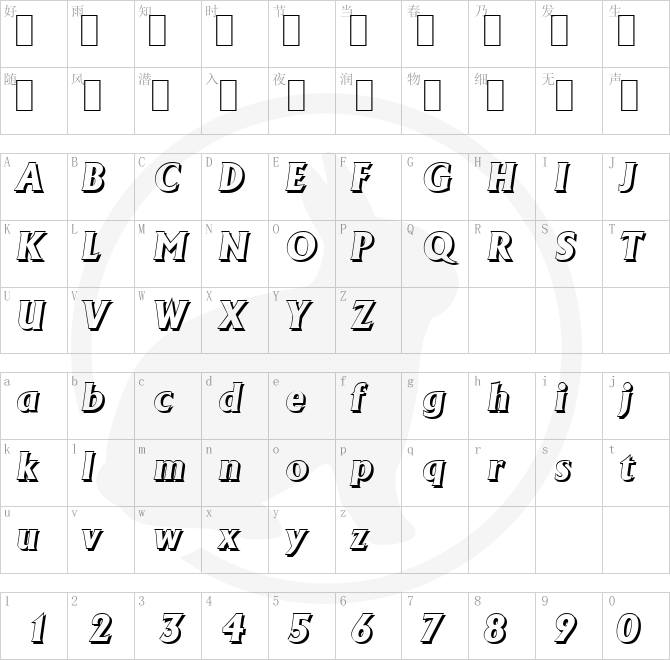
- Font Name:JacobBeckerShadow-ExtraBold
- Subfamily:Alts:JacobBeckerShadow-ExtraBold-Italic
- Full Name:JacobBeckerShadow-ExtraBold-Italic
- PostScript:JacobBeckerShadow-ExtraBold-Italic
JacobBeckerShadow-ExtraBold-Italic.ttf is a very beautiful artistic font, JacobBeckerShadow-ExtraBold-Italic.ttf is widely used in the design and printing of various books and pictures,JacobBeckerShadow-ExtraBold-Italic.ttf has a strong visual impact,JacobBeckerShadow-ExtraBold-Italic.ttf is a commonly used font in newspapers, magazines and books, and is used in posters, e-commerce Poster design, store design, logo design, font design and other fields.JacobBeckerShadow-ExtraBold-Italic.